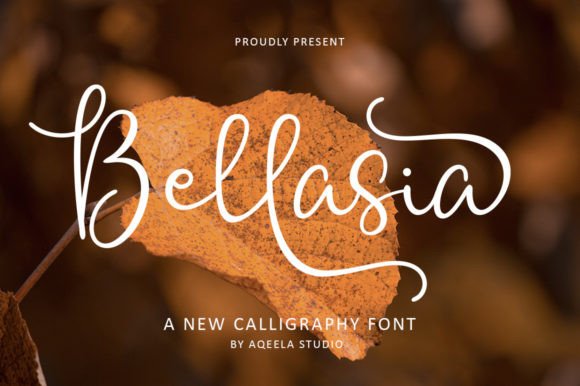
Bellasia Font: The Ultimate Choice for Elegant Handwritten Designs
Bellasia font is a stylish and incredibly elegant handwritten font that has gained popularity among designers and crafty individuals. Its unique and flowing script makes it perfect for adding a personal touch to various designs, from wedding invitations to business cards. In this article, we’ll explore the features and benefits of Bellasia font, and how it can elevate your designs to the next level.
What is Bellasia Font?
Bellasia font is a modern handwritten font that exudes elegance and sophistication. Its cursive script is characterized by beautiful swashes and flourishes, making it perfect for designs that require a touch of luxury and refinement. The font is designed to be highly legible, making it suitable for use in a variety of applications, from digital designs to print materials.
Features of Bellasia Font
Bellasia font comes with a range of features that make it an excellent choice for designers. Some of its notable features include:
- Elegant Handwritten Script: Bellasia font boasts a beautiful, flowing script that adds a touch of elegance to any design.
- Swashes and Flourishes: The font comes with intricate swashes and flourishes that add a level of sophistication to your designs.
- Highly Legible: Despite its ornate script, Bellasia font is highly legible, making it suitable for use in body text and headlines.
- Versatile: Bellasia font can be used in a variety of applications, from wedding invitations to business cards, and even digital designs.
Benefits of Using Bellasia Font
Using Bellasia font in your designs comes with a range of benefits, including:
- Unique and Eye-Catching: Bellasia font adds a unique and eye-catching element to your designs, setting them apart from others.
- Professional and Sophisticated: The font’s elegant script and swashes give your designs a professional and sophisticated look.
- Easy to Read: Despite its ornate script, Bellasia font is easy to read, making it suitable for use in body text and headlines.
- Customizable: Bellasia font comes with a range of customization options, allowing you to tailor it to your specific design needs.
Use Cases for Bellasia Font
Bellasia font is versatile and can be used in a variety of applications, including:
- Wedding Invitations: Add a touch of elegance and sophistication to your wedding invitations with Bellasia font.
- Thank You Cards: Express your gratitude in style with Bellasia font, perfect for thank you cards and other correspondence.
- Quotes and Greeting Cards: Add a personal touch to your quotes and greeting cards with Bellasia font’s elegant script.
- Logos and Business Cards: Elevate your brand with Bellasia font, perfect for logos, business cards, and other marketing materials.
Tips for Using Bellasia Font
To get the most out of Bellasia font, follow these tips:
- Use it Sparingly: While Bellasia font is beautiful, it can be overwhelming if used excessively. Use it sparingly to add a touch of elegance to your designs.
- Pair it with Simple Fonts: Pair Bellasia font with simple fonts to create a striking contrast and add visual interest to your designs.
- Experiment with Colors: Bellasia font looks stunning in a range of colors. Experiment with different colors to find the perfect match for your design.
Bellasia font is a stylish and incredibly elegant handwritten font that can elevate your designs to the next level. Its unique and flowing script, swashes, and flourishes make it perfect for adding a touch of luxury and refinement to various designs. With its versatility, legibility, and customization options, Bellasia font is an excellent choice for designers and crafty individuals. Whether you’re creating wedding invitations, thank you cards, or logos, Bellasia font is sure to make your designs stand out.
- What is Bellasia font? Bellasia font is a stylish and elegant handwritten font characterized by its beautiful swashes and flourishes.
- What is Bellasia font used for? Bellasia font can be used in a variety of applications, including wedding invitations, thank you cards, quotes, greeting cards, logos, business cards, and more.
- Is Bellasia font legible? Yes, Bellasia font is highly legible, making it suitable for use in body text and headlines.
- Can I customize Bellasia font? Yes, Bellasia font comes with a range of customization options, allowing you to tailor it to your specific design needs.